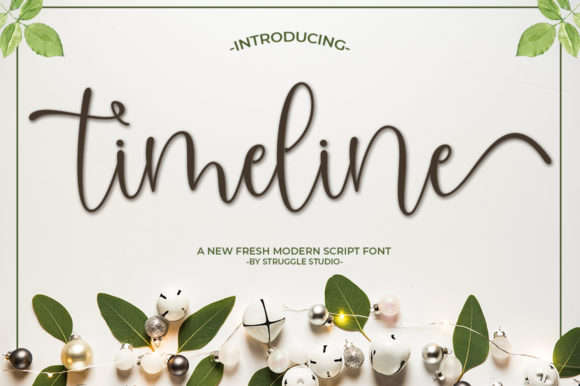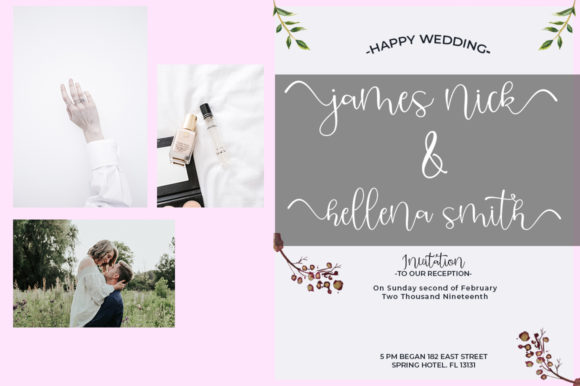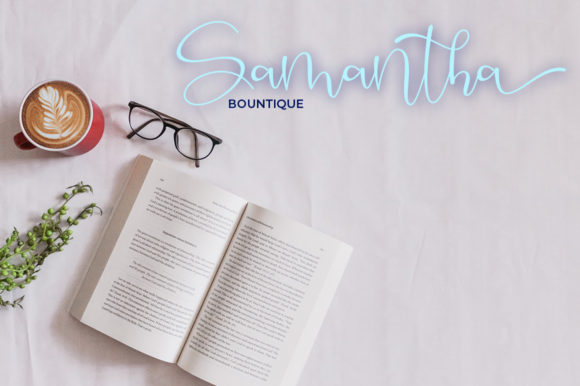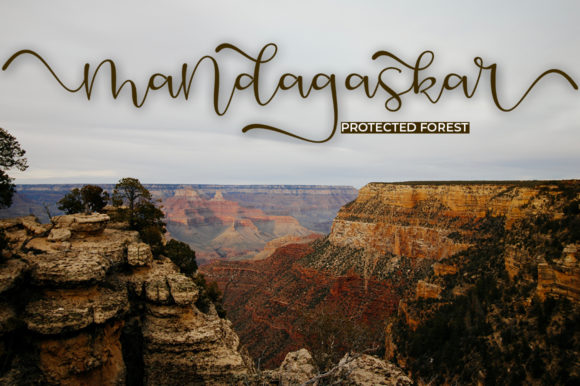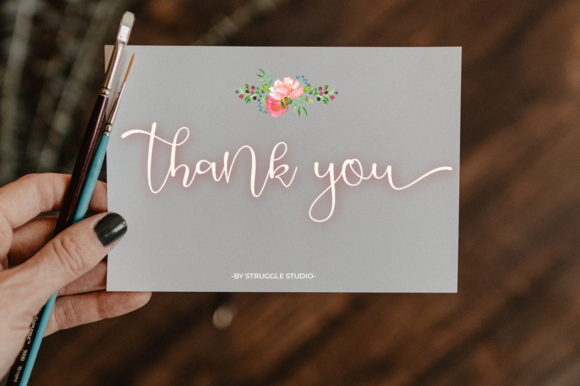
HomeScript FontsTimeline Font Script Fonts Timeline Font FacebookXPinterestWhatsApp Timeline Font Poster 2 Timeline Font Poster 3 Timeline Font Poster 4 Timeline Font Poster 5 About Timeline Font Timeline is a sweet and casual script with a unique style. Get inspired by its modern vibe. DOWNLOAD NOW People also explored Hurtley Font Shopping Market Font Autumn Love Font The Roughly Script Font Writing Creative Pink Pastel Font Sunday Holiday Font Vanishing Boy BTN Lazy Font 290 0 TagsTimeline Font Previous articleSantaria FontNext articleMagnolia Font LEAVE A REPLY Cancel reply Comment: Please enter your comment! Name:* Please enter your name here Email:* You have entered an incorrect email address! Please enter your email address here Website: Save my name, email, and website in this browser for the next time I comment. Personal Use Free Bonhomie Personal Use Free Read more about this font Euphorigenic Personal Use Free Read more about this font Eva Personal Use Free Read more about this font Hello, How Are You? Personal Use Free Read more about this font BLOG How to Cut Any Font on Cricut: Convert a Font to SVG (Free) Turn any font into a clean SVG so it cuts crisp on Cricut - a quick 3-step workflow using a free font-to-SVG tool. Top 7 Google Fonts Alternatives for Faster and Privacy-Friendly Web Design (2025) Using Fonts in Digital Marketing: Tips to Strengthen Your Brand Identity Free Fonts Risk: Why Free Fonts Can Be Dangerous for Designers